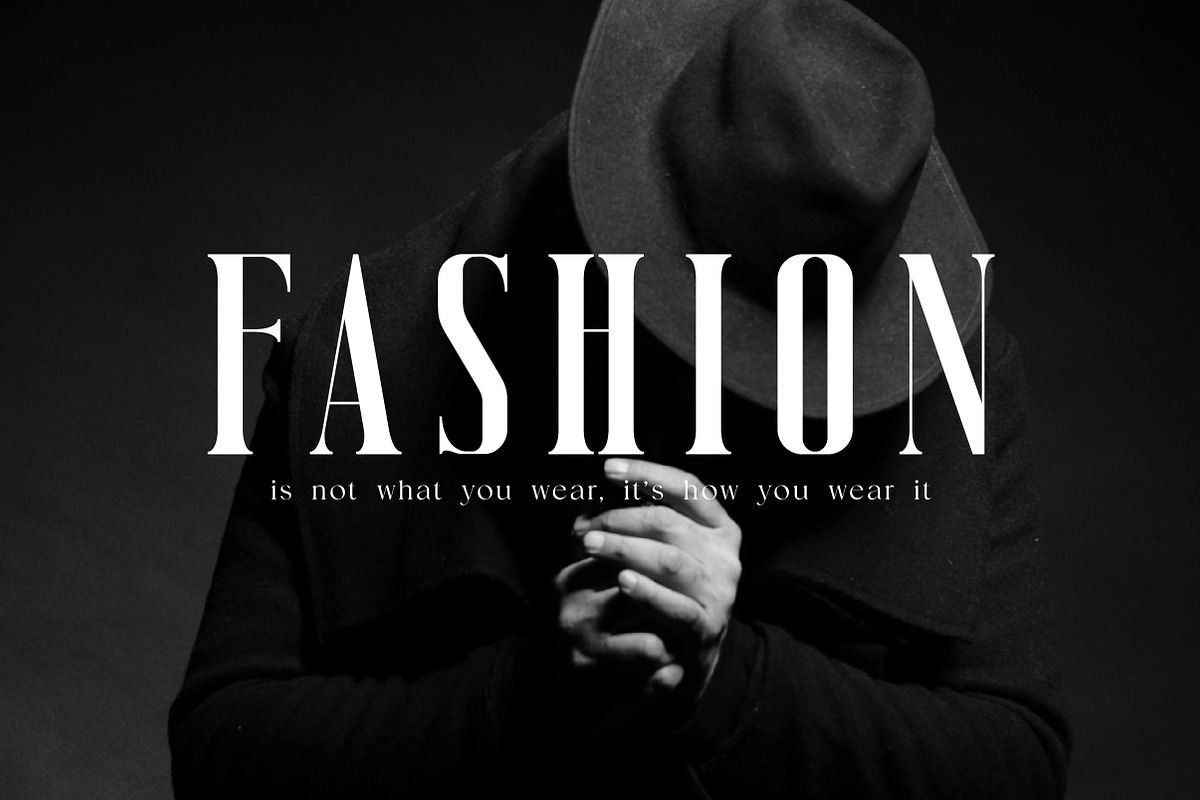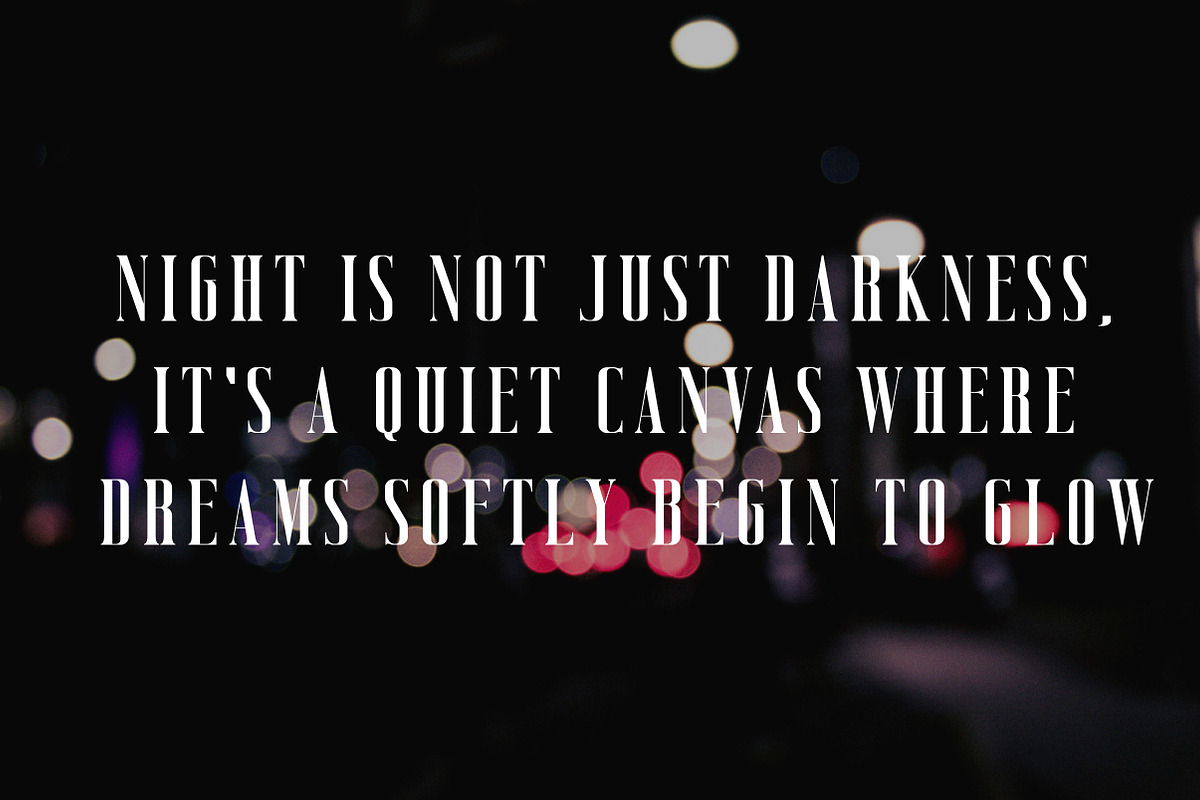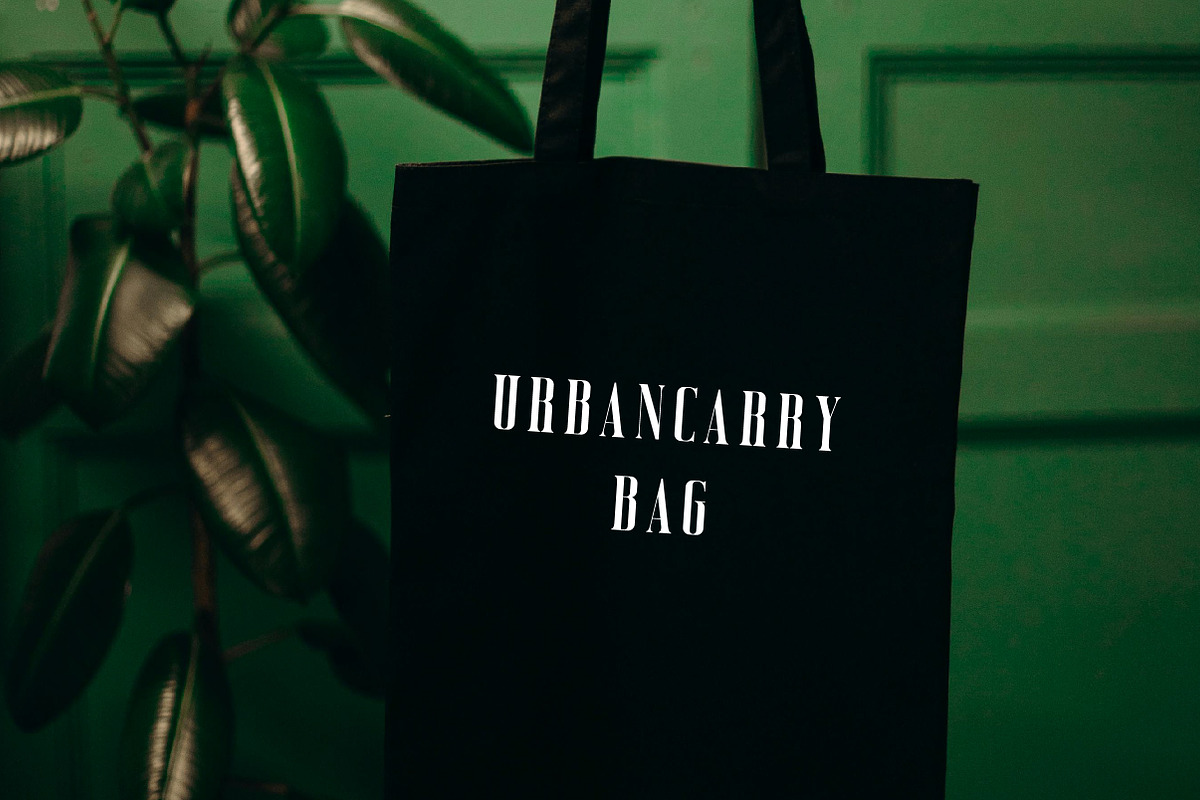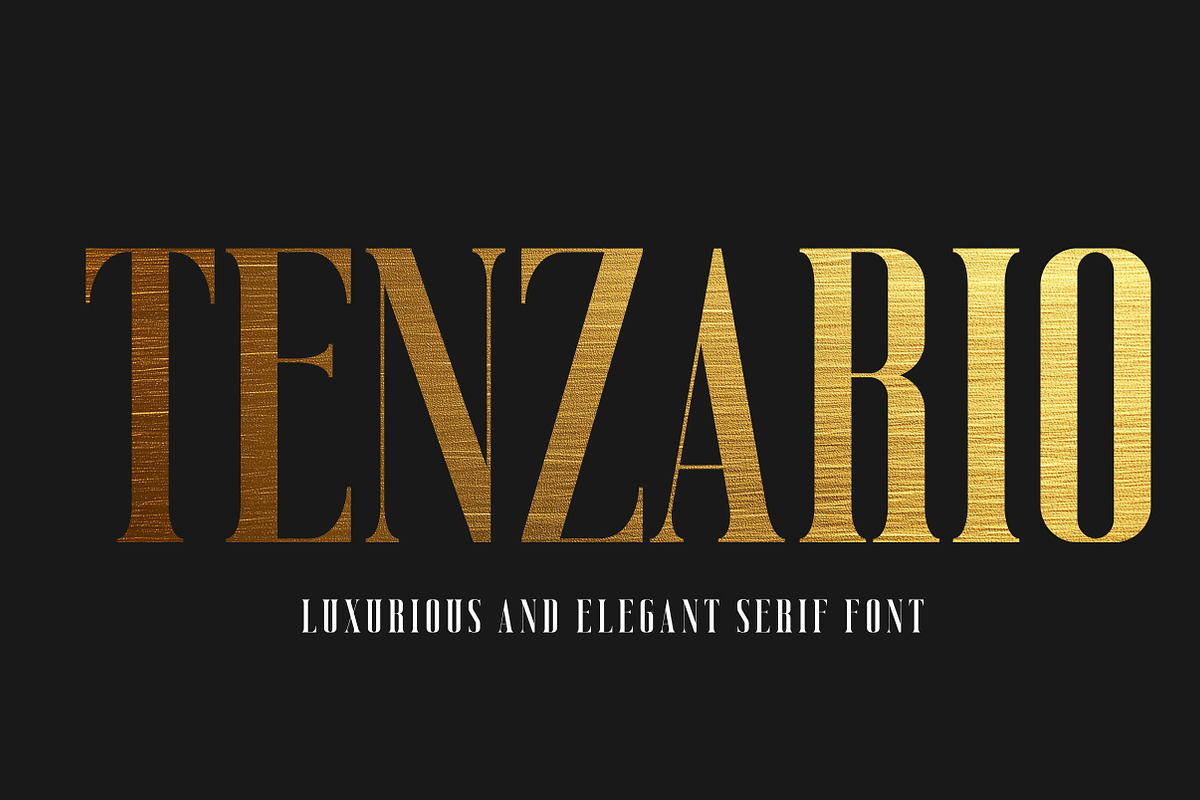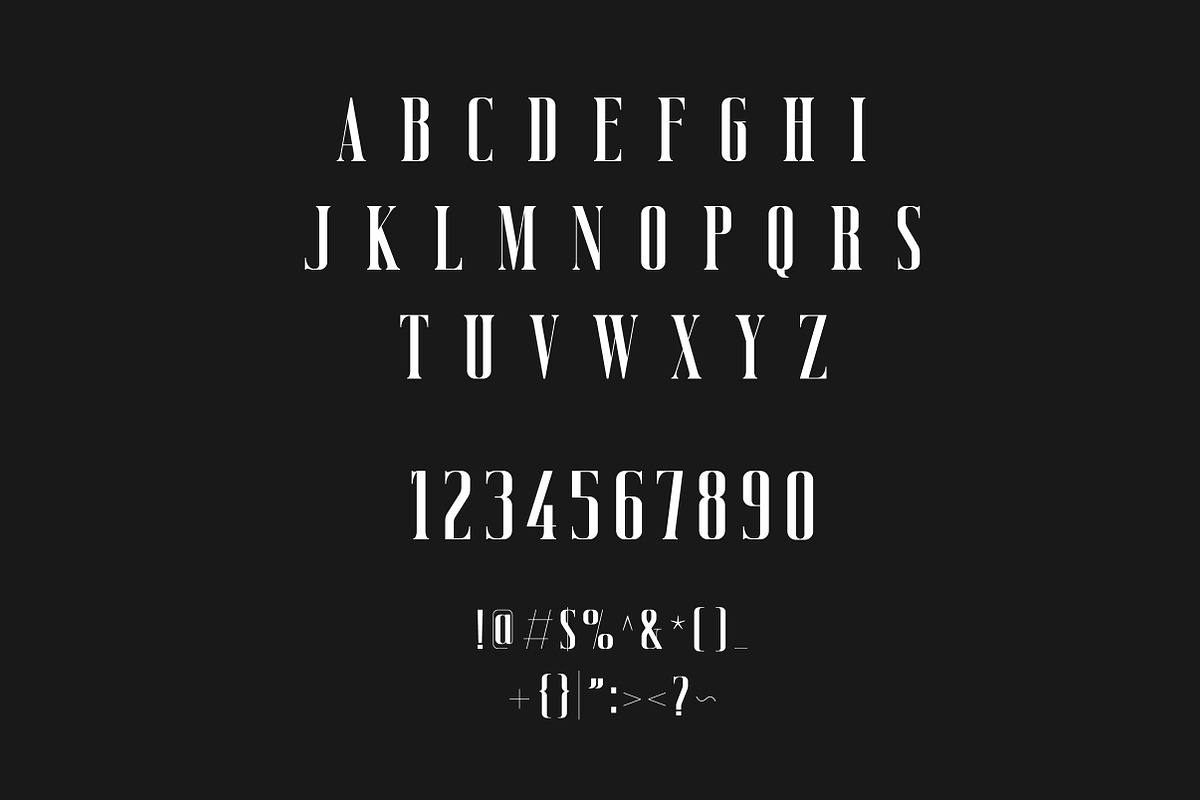
Tenzario | Elegant Serif Typeface
Tenzario is a stylish and versatile serif typeface that merges classic structure with modern aesthetics. Offered in Regular and Italic styles, Tenzario is designed for optimal readability and elegant contrast, making it perfect for branding, editorial layouts, packaging, logos, invitations, and high-end digital or print design.
The Regular style offers clean, balanced proportions suited for body copy and professional layouts, while the Italic style adds graceful movement and emphasis—perfect for quotes, titles, and decorative highlights. Together, they offer a powerful typographic duo for designers who value timeless elegance and practical flexibility.
Tenzario is the go-to serif font for designers seeking a sophisticated yet functional typeface that performs beautifully across digital and print formats.